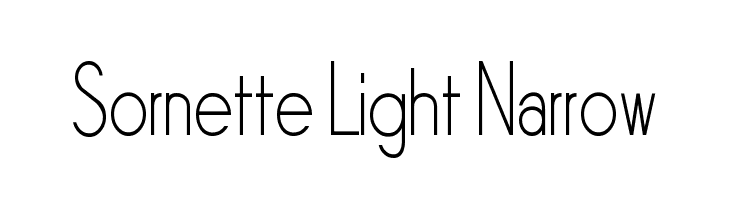
( Locomotype - Arwan Sutanto - www.locomotype.com )
A sleek, modern font with clean lines and a light weight, perfect for contemporary designs.
( Luc Mahler )
A sleek, modern font with elongated, narrow characters and minimal contrast.
( Luc Mahler )
A sleek, modern, and narrow font with a light weight and geometric design.
( M#rm#n - Mar Man )
A tall, narrow, and modern font with consistent stroke width and elegant design.
( Måns Grebäck - www.mansgreback.com )
A sleek, modern thin italic font with geometric precision and elegance.
( Måns Grebäck - www.mansgreback.com )
A sleek, modern font with geometric lines and a minimalistic style.
( Måns Grebäck - www.mansgreback.com )
A thin, italic font with a sleek and modern design.
( Måns Grebäck - www.mansgreback.com )
A sleek, modern font with thin, elongated characters and smooth curves.
( Måns Grebäck - www.mansgreback.com )
A sleek, thin, italicized font with a modern and elegant design.
( Måns Grebäck - www.mansgreback.com )
A modern, thin, and minimalist font with geometric forms.